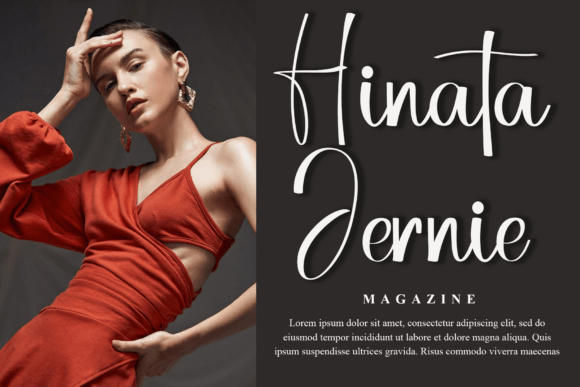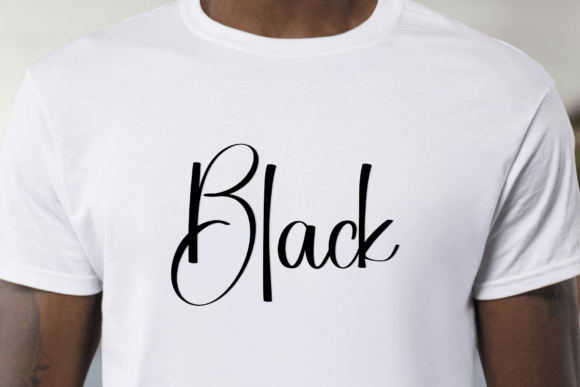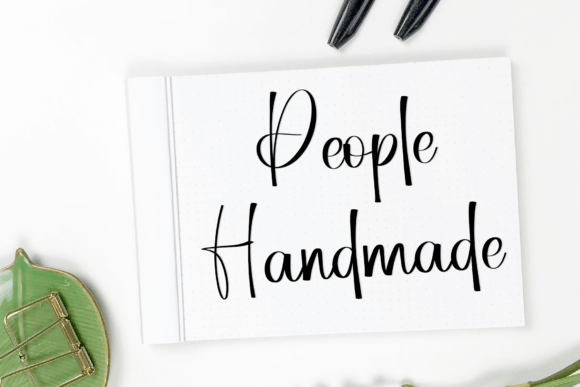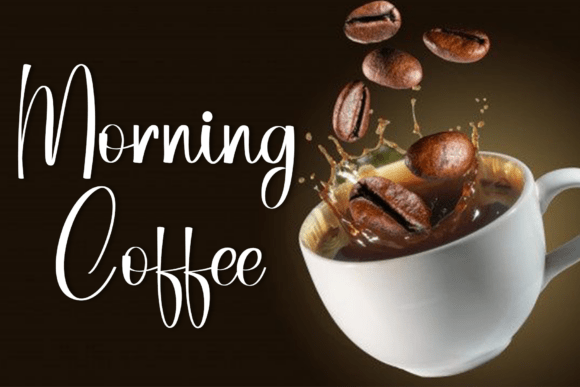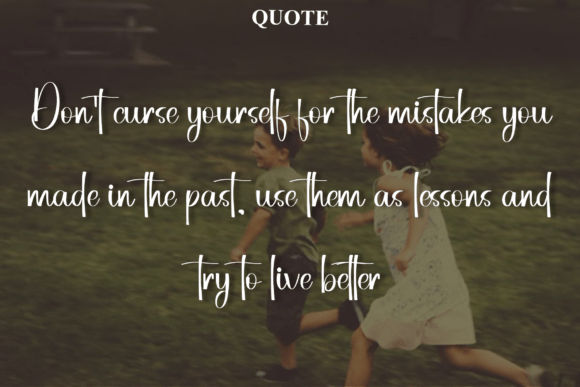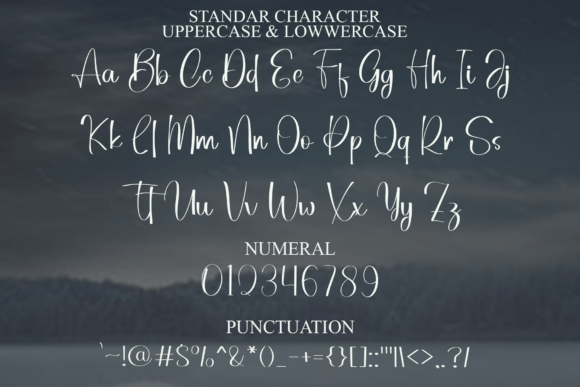
The Perfect Script for a Lesson in Elegance
Have you ever found yourself scribbling down notes in a meeting, trying to make your handwriting look as polished as a beautifully crafted pen calligraphy piece? I know I have. It’s a universal creative struggle, but one that can be solved with the right tool. Enter the Bimble Teacher Font, a script font that seamlessly blends modern calligraphy with a clean, legible structure.
This beautiful font is designed to project a feeling of refined professionalism and classic beauty, making it the perfect choice for educational materials, branding, book titles, and mentorship programs. Its looping ascenders and descenders create a steady flow that’s both visually appealing and easy to read. As a designer, you’ll appreciate the value of having a font that adds a touch of luxury to your designs while still maintaining clarity.
Bimble Teacher Font Key Features
- Font Family: Bimble Teacher is a unique, hand-drawn font designed specifically for educators and students.
- Unique Characteristics: Bimble Teacher features a playful, cursive style with distinctive letterforms and flourishes, making it perfect for creating engaging educational materials.
Bimble Teacher Font Review
I recently had the chance to work with the Bimble Teacher Font, and I must say it’s a mixed bag. On the one hand, it’s perfect for its intended use: creating educational materials for kids. The font is playful, yet still legible, which is a tough balance to strike. ✨ The rounded edges and friendly feel make it a great choice for worksheets, flashcards, and other educational resources.
Here are some of the font’s strengths:
- ✨ Perfect for educational materials: As mentioned earlier, the font’s playful yet legible design makes it ideal for creating educational resources for kids.
- ✨ Easy to read: Despite its playful feel, the font is still easy to read, even at smaller font sizes.
- ✨ Customizable: The font comes in a range of weights and styles, making it easy to customize to suit your needs.
- ⚠️ Limited versatility: While the font is great for educational materials, it may not be the best choice for more formal or professional documents.
- ⚠️ May not work well in all contexts: The font’s playful feel may not be suitable for all educational contexts, such as academic papers or more serious educational materials.
Overall, I think the Bimble Teacher Font is a solid choice for educational materials, but it may not be the best fit for all projects. With a little creativity and customization, it can be a great addition to your design toolkit.
To get the most out of the Bimble Teacher Font, consider the following tips:
- Use the font in conjunction with other playful, educational graphics to create a cohesive look.
- Consider pairing the font with a clean, simple background to let the text stand out.
The Bimble Teacher Font is perfect for:
- Creating educational materials, such as worksheets and lesson plans.
- Designing children’s books and educational apps.
- Developing branding materials for schools and educational